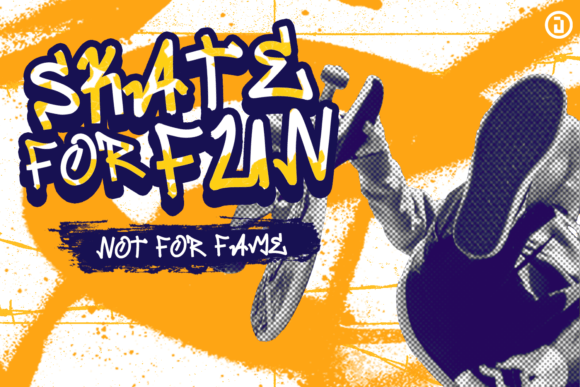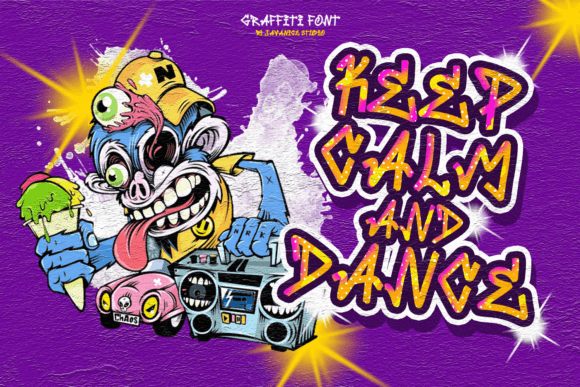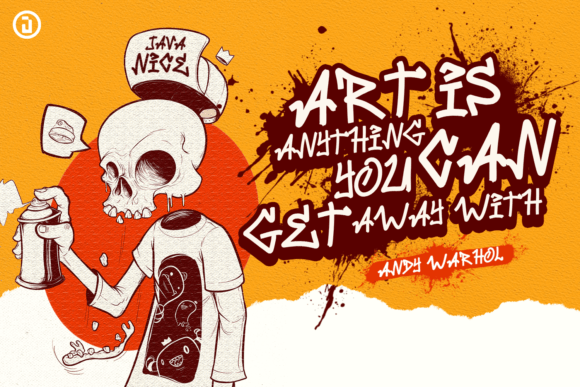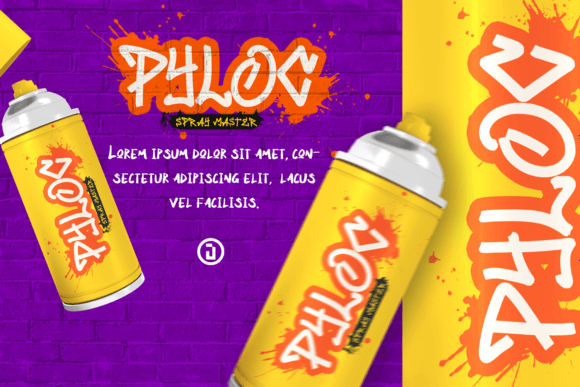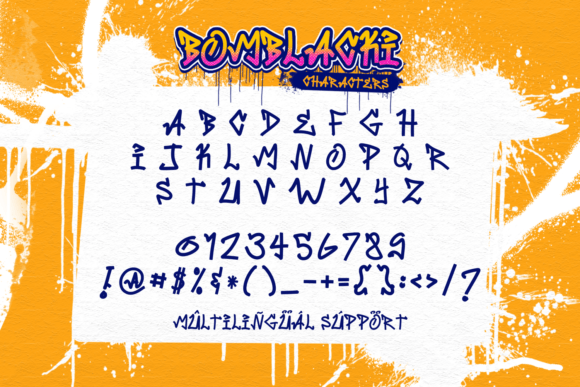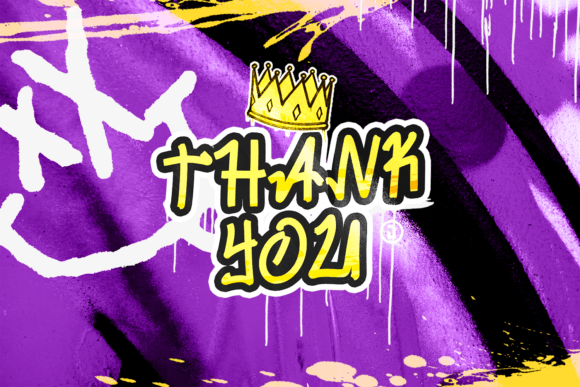
Bomblacki Font: Adding an Urban Touch to Your Designs
In the world of typography, fonts play a crucial role in conveying the tone and personality of a design. For designers and crafters looking to add a touch of urban flair to their projects, the Bomblacki font is an excellent choice. This graffiti font boasts a happy, cartoony shape that is sure to elevate any design.
What is Bomblacki Font?
Bomblacki is a unique graffiti font that features bold, playful, and vibrant characters. Its cartoony shape gives it a fun and lively feel, making it perfect for designs that require a youthful and energetic vibe. The font’s urban touch is ideal for projects that need a bit of an edgy feel, such as posters, flyers, and social media graphics.
Key Features of Bomblacki Font
- Graffiti Style: Bomblacki font is designed in a graffiti style, which gives it a distinctive urban look.
- Happy Cartoony Shape: The font features a happy, cartoony shape that adds a playful touch to any design.
- Bold and Vibrant: The font is bold and vibrant, making it perfect for designs that require a statement piece.
- Urban Touch: The font’s urban touch is ideal for projects that need a bit of an edgy feel.
Uses of Bomblacki Font
Bomblacki font is versatile and can be used in a variety of design projects, including:
- Posters and Flyers: The font is perfect for creating eye-catching posters and flyers that require a bold and vibrant look.
- Social Media Graphics: Bomblacki font can be used to create engaging social media graphics that require a youthful and energetic vibe.
- Logos and Branding: The font can be used to create unique logos and branding materials that require a distinctive urban touch.
- Signage and Displays: Bomblacki font is ideal for creating eye-catching signage and displays that require a bold and vibrant look.
Tips for Using Bomblacki Font
Here are some tips for using Bomblacki font effectively in your designs:
- Pair with Neutral Backgrounds: Pair the font with neutral backgrounds to make it stand out.
- Experiment with Colors: Experiment with different colors to find the perfect combination that works with your design.
- Use in Combination with Other Fonts: Use Bomblacki font in combination with other fonts to create a unique and visually appealing design.
- Keep it Simple: Keep your design simple and avoid clutter to ensure that the font remains the focal point.
In conclusion, Bomblacki font is a unique and versatile graffiti font that is perfect for designers and crafters looking to add an urban touch to their projects. Its happy, cartoony shape and bold, vibrant characters make it ideal for a variety of design projects, from posters and flyers to social media graphics and logos. By following the tips outlined above, you can use Bomblacki font to create stunning designs that are sure to grab attention.